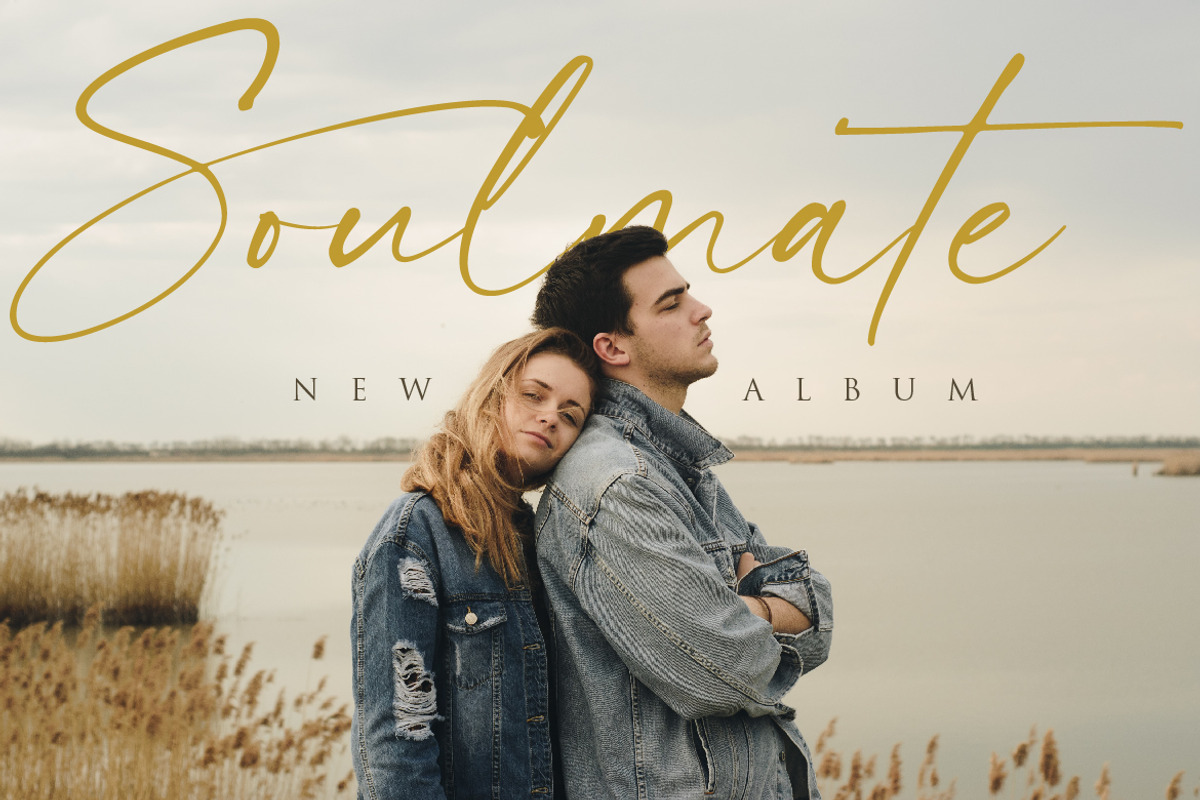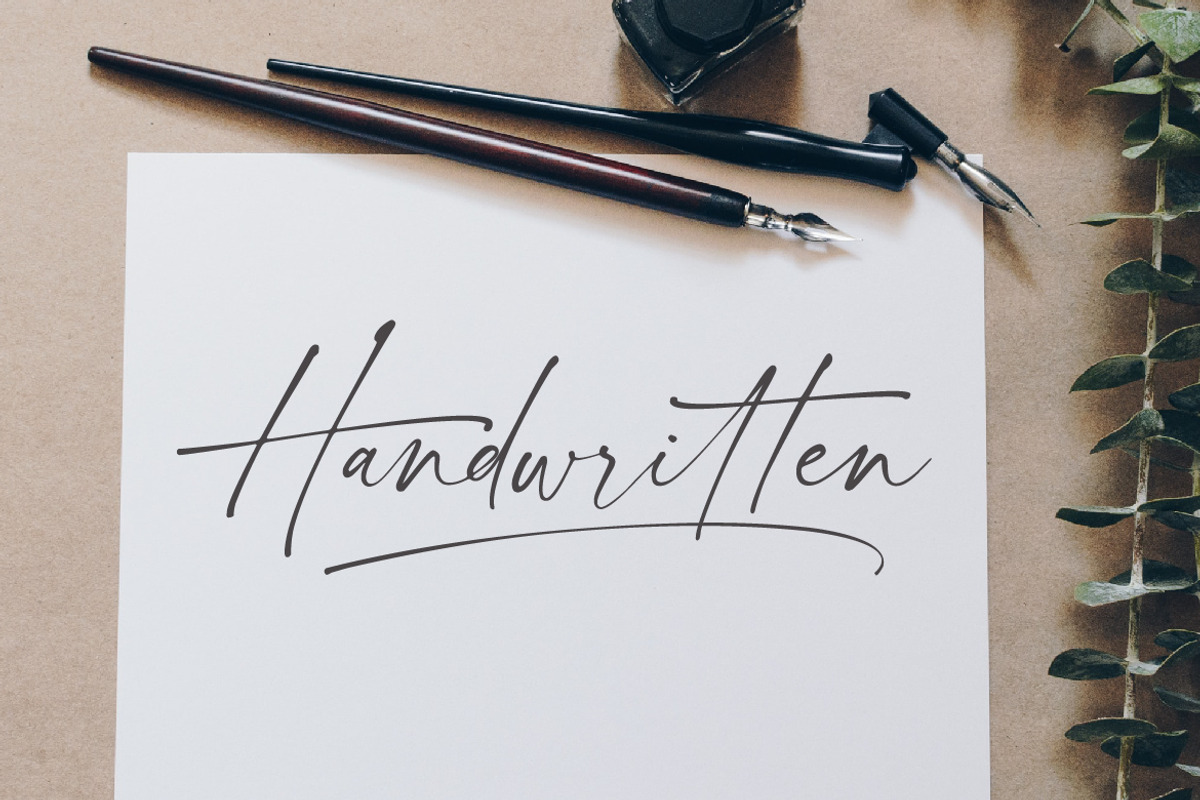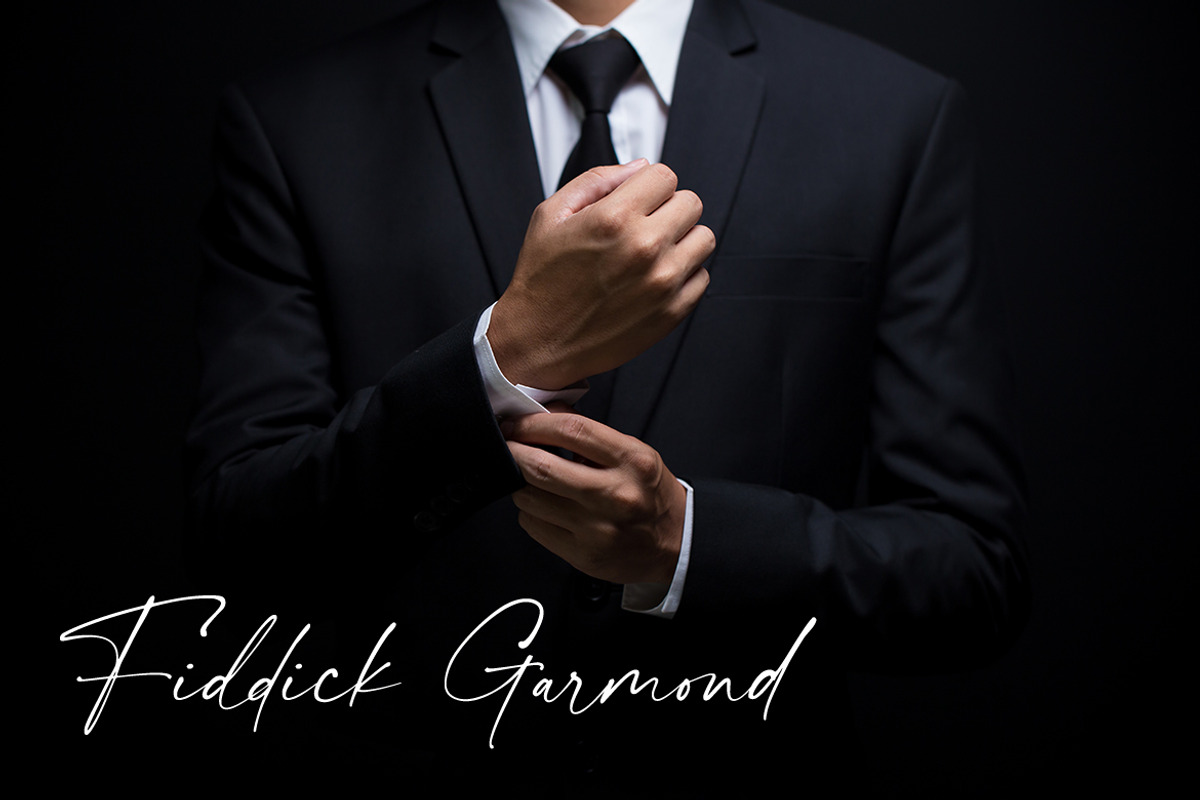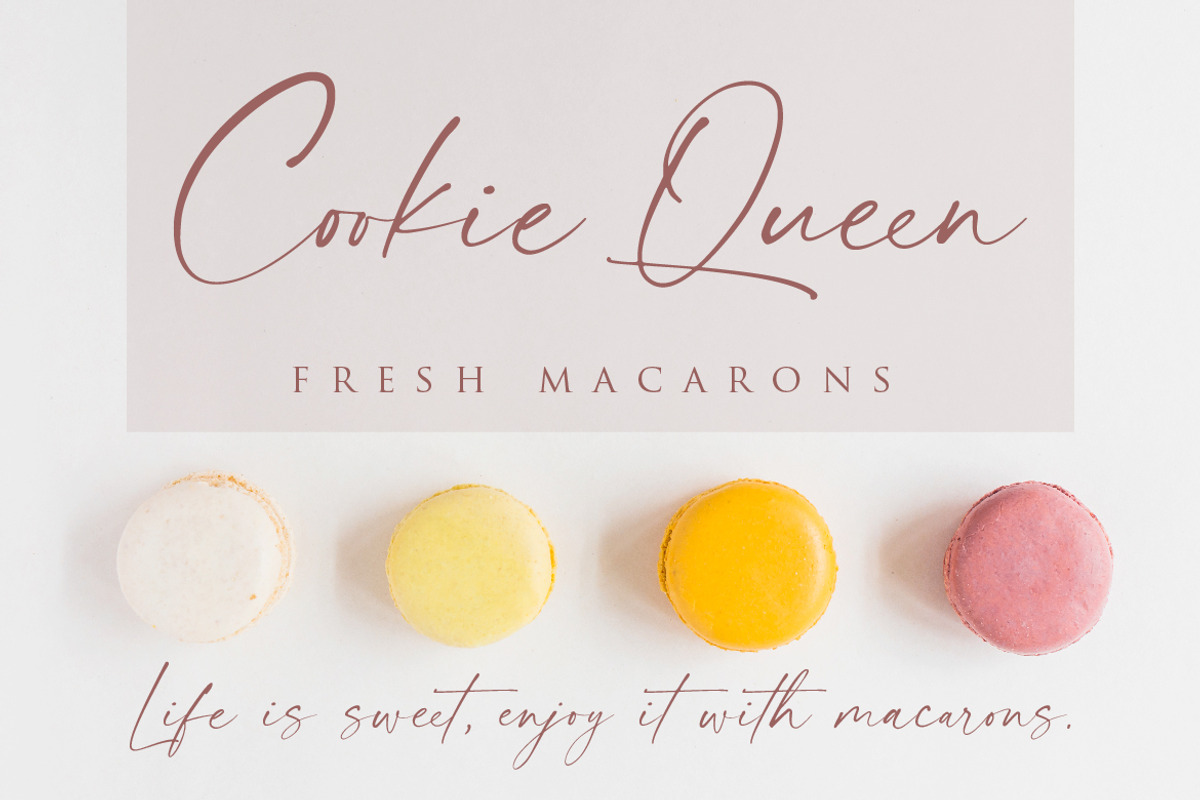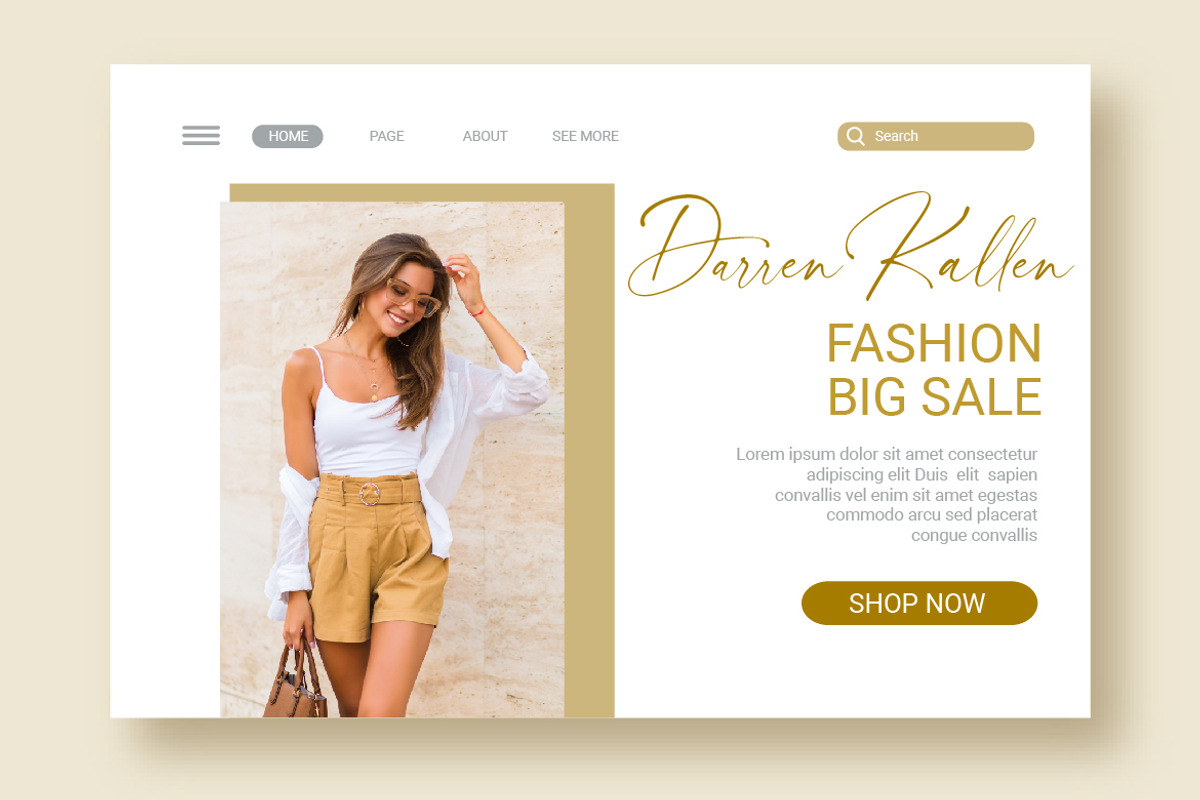
Donitta Font
Donitta is a stylish calligraphy font with different dazzling swash that suitable for wedding invitation, romantic project, blessed gift, branding, elegant project, and-so-on. You will get full set of lowercase and uppercase letters, numerals and punctuation, multilingual symbols, lowercase beginning and ending swashes, ligatures and extra swashes.
Donitta | Stylish Calligraphy Font